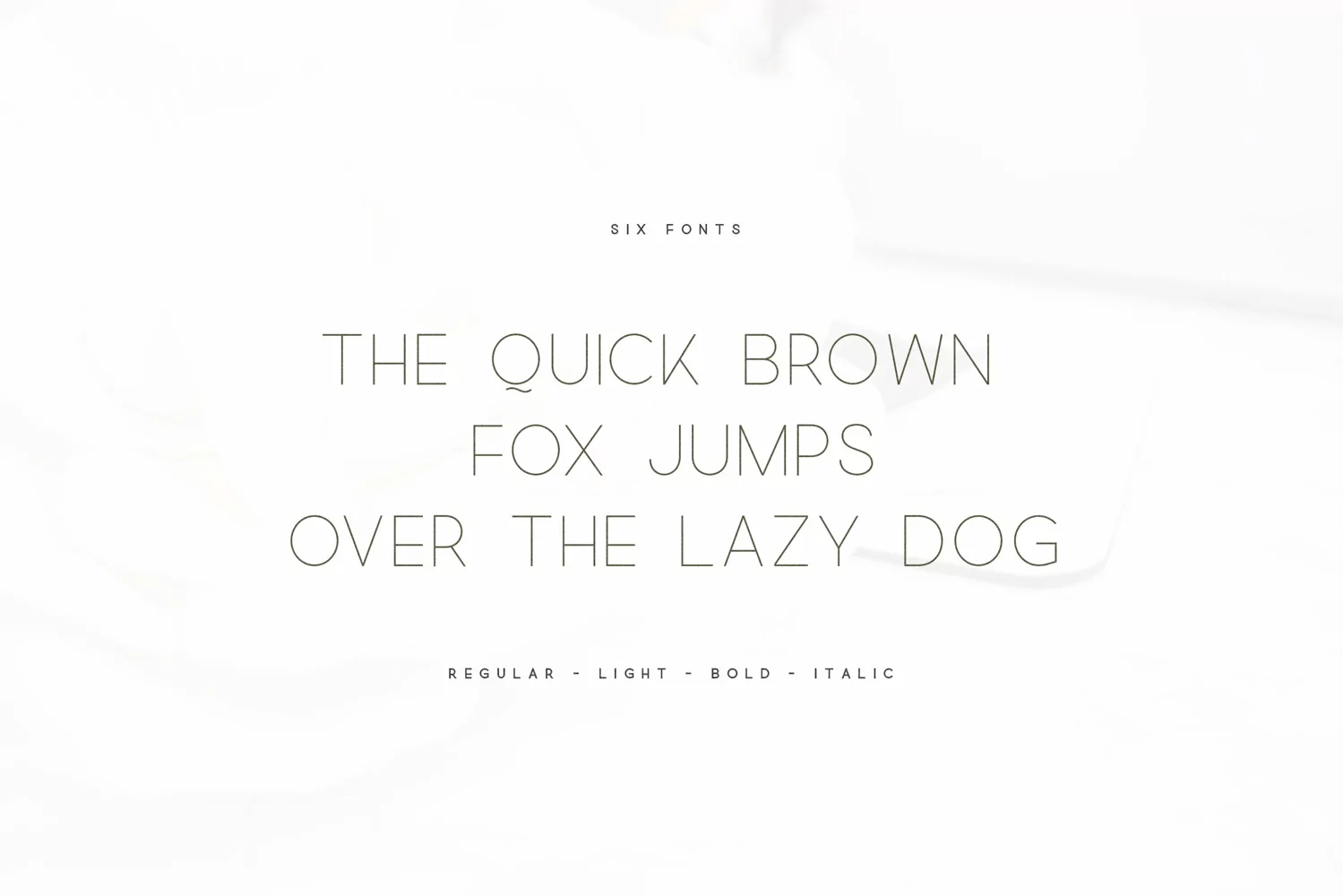
Quick - An Elegant Sans Serif
Quick - An Elegant Sans Serif and minimalist character! it's perfect for logos, name card, magazine layouts, invitations, headers, or even large-scale artwork.
1. Quick - A clean - Regular -, light, bold and Italic version, sans serif font including upper & lowercase characters, numerals and more of symbols.